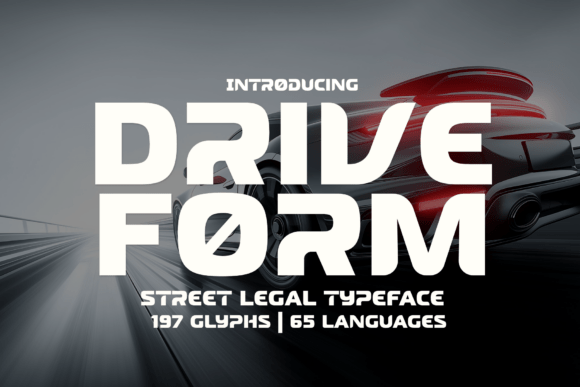
The Rush of Speed: Unleash Your Design with Drive Form Font
Remember the rush of adrenaline when you’re speeding down a winding mountain road, the wind rushing past your face, and the roar of the engine beneath you? That’s the feeling Drive Form Font embodies – the unbridled energy and precision of the automotive racing world, distilled into a sleek, modern typeface.
Engineered for designers who crave speed and futuristic flair, Drive Form Font is the perfect companion for brands that want to move fast and look bold. With its aerodynamic design and unique uppercase and lowercase variants, this font is a game-changer for creating striking, custom-looking typography that’s sure to turn heads. Whether you’re designing for drift culture or high-octane racing, Drive Form Font gives you the tools to unleash your creativity and leave a lasting impression.
- Unique Characteristic: Drive Form Font features a distinctive, modern design with clean lines and geometric shapes, making it perfect for use in corporate branding, advertising, and digital signage.
Drive Form Font Review
As a designer, I was excited to try out the Drive Form Font. Here’s my honest review:
The Drive Form Font has some great features that make it a solid choice for digital projects. Here are a few things I like:
- It’s highly legible, even at small font sizes, making it perfect for forms and other text-heavy elements.
- The font has a clean and modern aesthetic that works well for a variety of digital applications, from websites to mobile apps.
- The font family includes a range of weights and styles, giving you plenty of options for customizing your designs.
While the Drive Form Font has many great features, there are a few limitations to consider:
- The font may not be the best choice for print projects, as it can look a bit pixelated at larger font sizes.
- The font family is not as extensive as some other popular font families, which may limit your options for customization.
Overall, I think the Drive Form Font is a solid choice for digital projects. While it may have some limitations, its clean and modern aesthetic, combined with its highly legible design, make it a great option for a variety of applications.
The Drive Form Font is ideal for creating modern and professional-looking documents, presentations, and designs. Some common use cases include:
- Corporate branding and marketing materials.
- Business reports and proposals.
- Website and e-commerce designs.
Alternatives to “Drive Form Font” for Designers
Open Sans is a clean and modern sans-serif font that works well for digital interfaces. It’s highly legible and suitable for body text, labels, and titles. Use Open Sans when you need a versatile and neutral font that doesn’t distract from your design.
Comparison to Drive Form Font: Open Sans is more neutral and doesn’t have the same level of branding as Drive Form Font. It’s a more universal font that can be used across various design projects.
Montserrat is a geometric sans-serif font that’s perfect for modern and minimalist designs. It’s highly legible and suitable for body text, labels, and titles. Use Montserrat when you need a font that adds a touch of sophistication and elegance to your design.
Comparison to Drive Form Font: Montserrat is more geometric and has a stronger visual identity than Drive Form Font. It’s a great choice when you want to add a modern and sleek feel to your design.